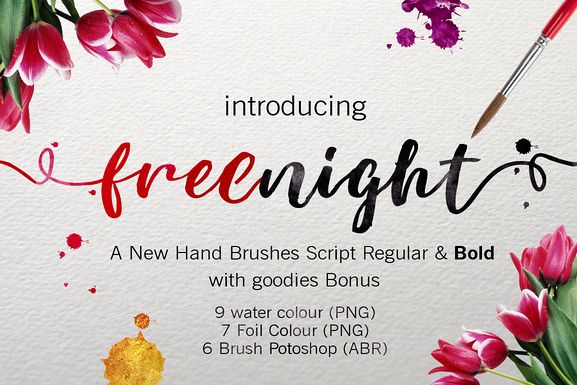
FREENIGHT SCRIPT
Freenight Bold.
Freenight swashes bold.
Freenight swashes regular.
Freenight swashes semi bold.
Freenight.
Freenight Script is a new hand brushes script typeface, It suitable for wedding invitation, greeting cards, watercolor based design, or any design that you create. Samuella Script font comes with a complete set of standard characters, Punctuation, international glyphs, The alternative characters were divided into several OpenType features such as Ligature & Alternates
UPPERCASE
lowercase
numeral
punction
international glyphs
Stylistic Alternates
Character Alternates
Ligatures